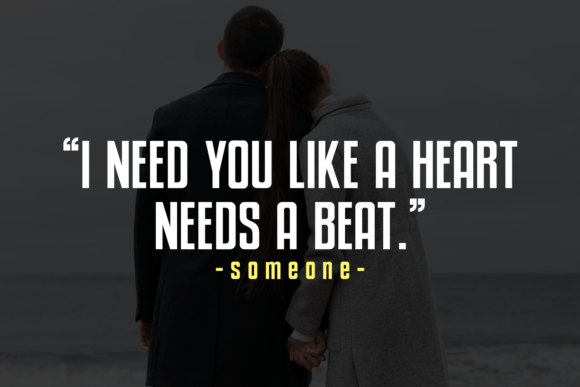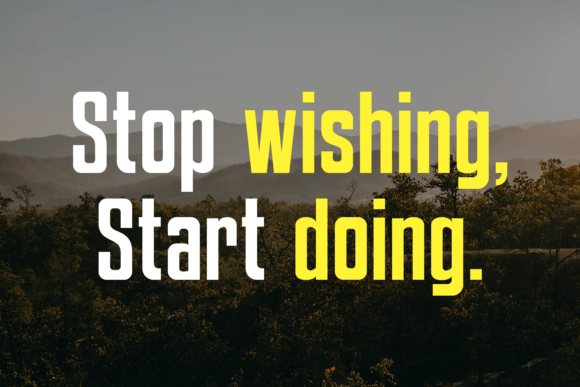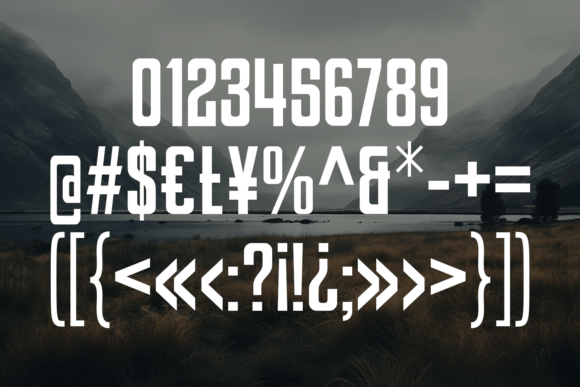
Broday Font
Unveiling Broday, the embodiment of simplicity forged with boldness in sans serif font style. Transporting the beauty and professionalism of typography right onto your screen, Broday makes a splash in the realm of film posters, seizes attention in headlines and block letters, spells clarity in subheadings, and crafts personality into logo designs. Expand your creative horizon with Broday, where minimalism meets impact, transcending the ordinary and inviting a world of typographic possibilities.